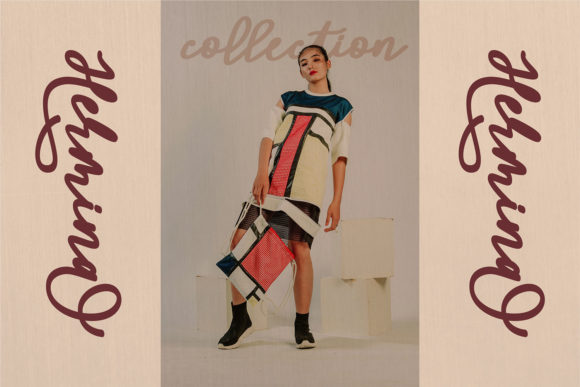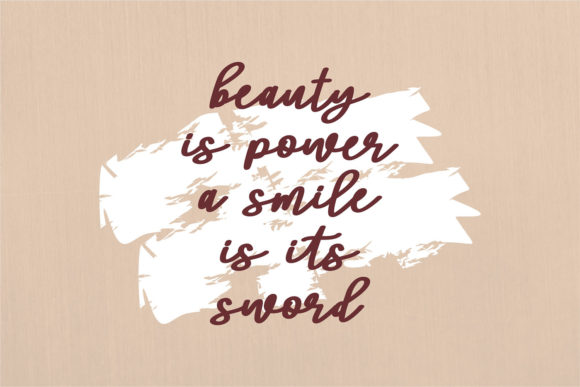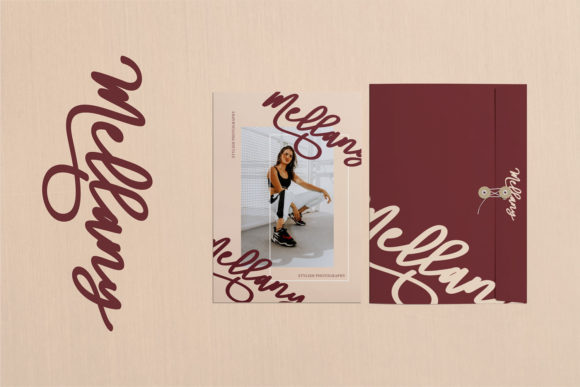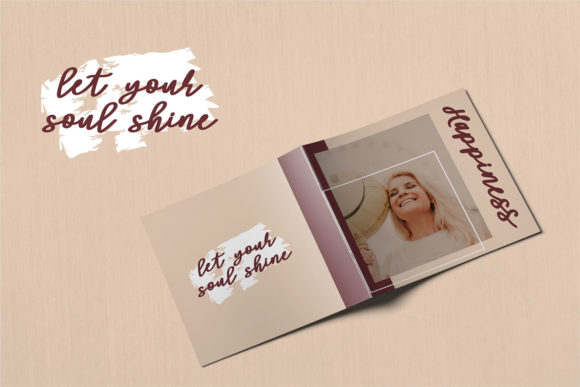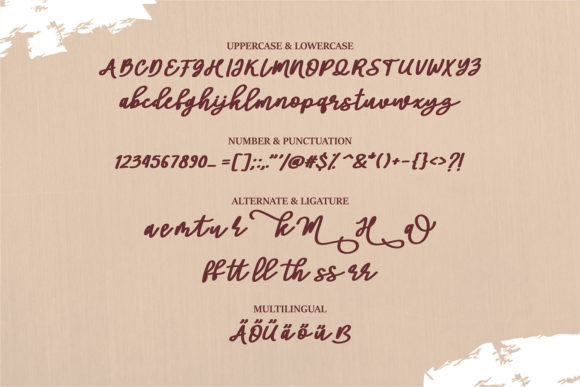
Introduction to Merrika Font
Have you ever stared at a blank page, trying to bring your creative project to life, only to be met with a wall of blank stares? That was me, until I discovered the beautiful Merrika Font. This lovely handwritten font is a game-changer for designers, and I’m excited to share it with you.
Created with the help of a neat brush pen, Merrika Font boasts beautiful and well-balanced characters that make any design come alive. Its versatility makes it a valuable resource for designers, perfect for adding a personal touch to a wide range of creative projects. Whether you’re working on a free download, a high-quality brochure, or a simple logo, Merrika Font is sure to elevate your design to the next level.
Key Features of Merrika Font
- Unique, modern design with a clean and elegant aesthetic, making it a great addition to any design portfolio.
- Available in multiple weights and styles, allowing designers to mix and match to achieve the perfect look for their project.
Honest Review: Merrika Font
I recently stumbled upon the Merrika Font and was excited to give it a try. As a designer, I’m always on the lookout for high-quality design resources to elevate my creative projects.
- ✨ The font’s modern aesthetic is perfect for trendy designs and visually appealing compositions.
- ✨ The font is highly customizable, making it easy to adjust to fit any design style.
- ⚠️ The font may not be suitable for traditional or formal designs due to its modern and edgy feel.
Overall, I’m impressed with the Merrika Font’s design and functionality. It’s a great addition to any designer’s toolkit, especially for creative projects that require a modern and trendy look. While it may have some limitations, the font’s high quality and customization options make it a valuable resource for designers of all levels.
Tips for Getting the Most Out of Merrika Font
For the best results, use Merrika Font with a transparent background to create a clean and modern look. You can also experiment with different font sizes and styles to add visual interest to your design.
Merrika Font is a versatile design resource that can be used for a variety of creative projects, including graphics, social media posts, and presentations. It’s also a great choice for creating free download resources, such as printable art and templates.